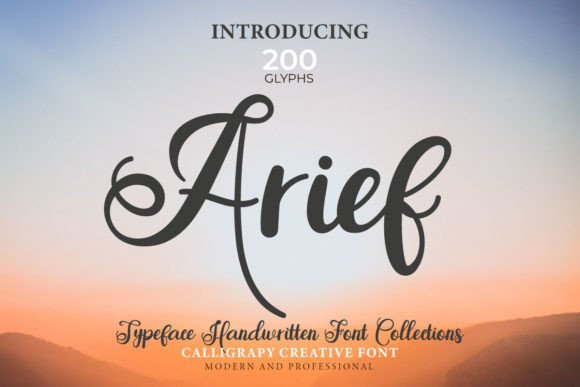
Step into a world of elegance and sophistication with Arief Font, a stunning handwritten font that breathes life into your creative endeavors. With its enchanting curves and graceful strokes, Arief captivates hearts like a symphony of ink on paper.
Indulge in the beauty of Arief, a script font crafted with passion by Arief Indra Pratama, a maestro of typography. Each letter is meticulously designed to evoke a sense of authenticity and charm, making it perfect for those seeking a font that speaks volumes.
As you explore the endless possibilities of Arief, discover its versatility that knows no bounds. Whether you're a graphic designer seeking a touch of personality for your designs, a social media enthusiast yearning for eye-catching posts, or an entrepreneur desiring a logo that leaves a lasting impression, Arief is your muse.
Imagine your wedding invitations adorned with Arief's graceful strokes, transforming your special day into an unforgettable affair. Envision your product packaging exuding an air of exclusivity, thanks to Arief's elegant presence. Let your labels and watermarks bear the mark of sophistication, setting your products apart from the ordinary.
With Arief as your creative companion, you'll find inspiration in every corner of your design journey. Its adaptability extends to wall displays, where its presence adds a touch of artistry to your living spaces. From logos and advertisements to product designs and photography, Arief effortlessly elevates your creations, making them stand out from the crowd.
Indulge in Arief's timeless beauty, a font that transcends trends and fads, remaining an evergreen choice for discerning designers. Its versatility knows no limits, allowing you to weave magic across a multitude of projects, from stationery and invitations to social media posts and product packaging.
Don't let your designs settle for mediocrity. Embrace the allure of Arief and unlock a world of creativity. Let your imagination soar as you delve into its endless possibilities. Experience the transformative power of Arief and watch your designs blossom into masterpieces.